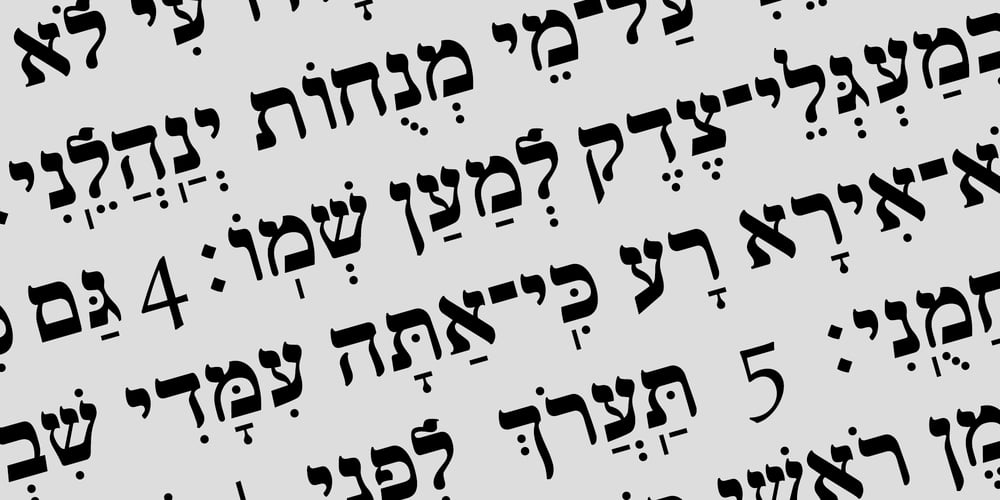
Hebrew Frank Std
Hebrew Frank Std font
Hebrew Frank Std Font Family was designed by Sami Artur Mandelbaum and published by Samtype. Hebrew Frank Std contains 2 styles and family package options. This is The Classic font of the XX century.